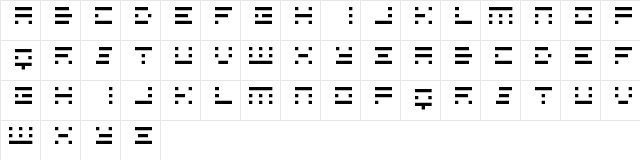
Assys Regular
Design Context for Assys Typeface
Assys takes a measured approach to typography — its balanced proportions and neutral character make it a reliable workhorse for both digital and print work.